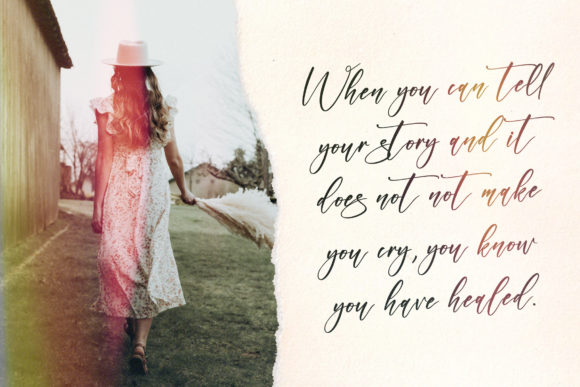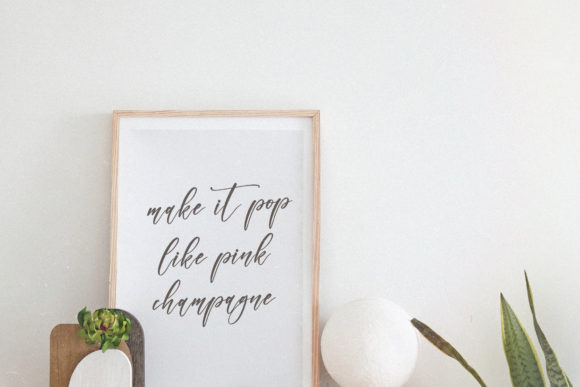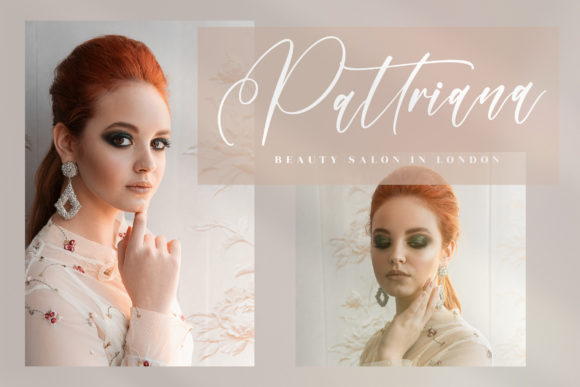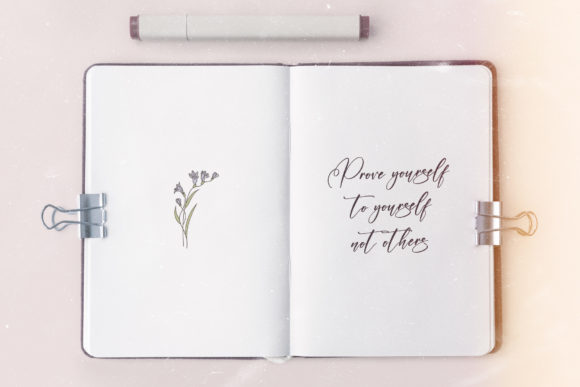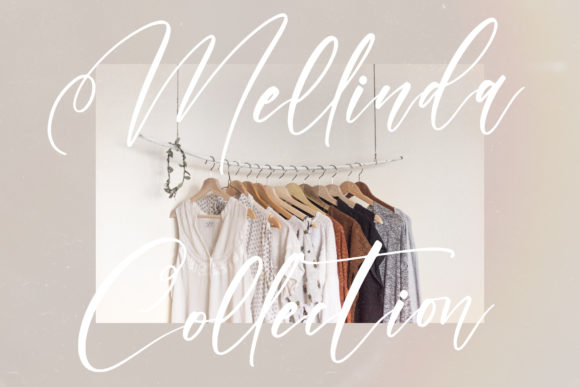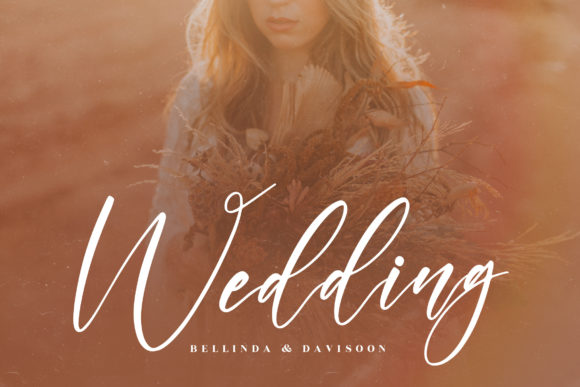
Introduction to Naillinda Font
Have you ever been browsing through a beautifully designed store and suddenly, you’re stopped in your tracks by a stunning script font that perfectly complements the products on display? That’s exactly what Naillinda Font is all about – adding a touch of elegance and sophistication to your creative projects.
As a designer, you’re always on the lookout for high-quality design resources that can elevate your work. Naillinda Font is a beautiful script font that’s perfect for any project, from logos and branding to homeware designs, product packaging, and more. Its versatility and timeless appeal make it a valuable addition to any designer’s toolkit.
Key Features of Naillinda Font
- Unique, hand-drawn style with a transparent background, ideal for graphic designers and artists.
- Includes 5 font styles, each with its own distinct character and flair, making it perfect for adding visual interest to designs.
- Resolution-independent, ensuring that the font remains crisp and clear at any size or resolution.
- Perfect for use in logos, branding, and other visual identity elements, as well as in digital and print materials.
Honest Review: Naillinda Font
I recently had the chance to work with the Naillinda Font, and I have to say it’s a great addition to any design resource. The font is a free download, which is always a bonus, and it’s perfect for creative projects that require a touch of elegance.
What works well with Naillinda Font is its versatility. It can be used for both digital and print designs, and it looks great in various sizes and resolutions. The font also comes with a transparent background, which makes it easy to customize and integrate into your designs. ✨
Some of the key features of Naillinda Font include:
- High-quality design with a modern twist
- Wide range of applications, from logos to body text
However, I did encounter some limitations with Naillinda Font. ⚠️ The font doesn’t come with as many language support options as I would have liked, and some of the characters may not display correctly in certain fonts. Additionally, the font can be a bit difficult to read in small sizes.
Overall, I’m impressed with the Naillinda Font, and I would definitely recommend it to designers who are looking for a high-quality, free font for their creative projects. Just be aware of the limitations, and you’ll be all set to create some amazing designs with this font!
The Naillinda Font is a versatile and high-quality font that can be used in various creative projects. With its transparent background, it can be easily integrated into any design without visual obstructions.
Tips for Getting the Most Out of Naillinda Font
For optimal results, use the Naillinda Font in conjunction with other high-quality design elements. Experiment with different font sizes, colors, and styles to create a unique visual identity for your project.
The Naillinda Font is suitable for a variety of creative projects, including logos, branding materials, brochures, and social media graphics. Its versatility and high quality make it an excellent choice for designers looking to elevate their work.